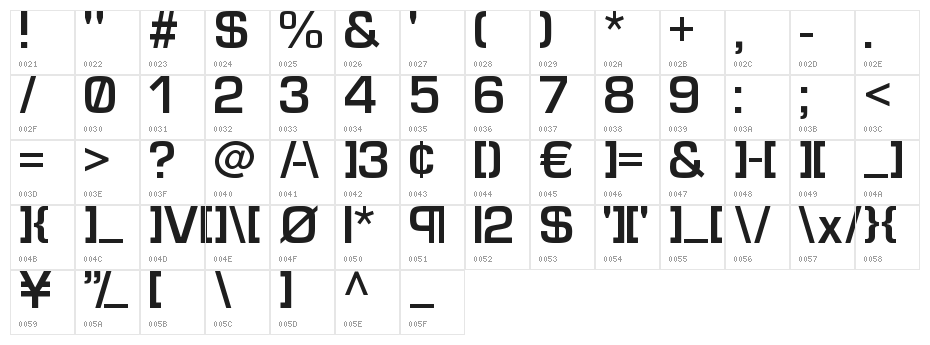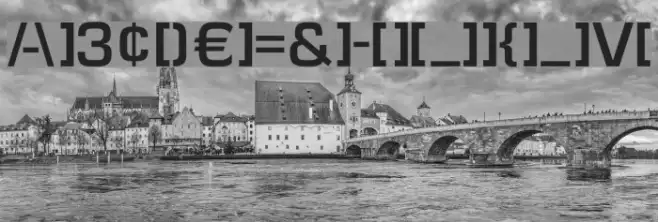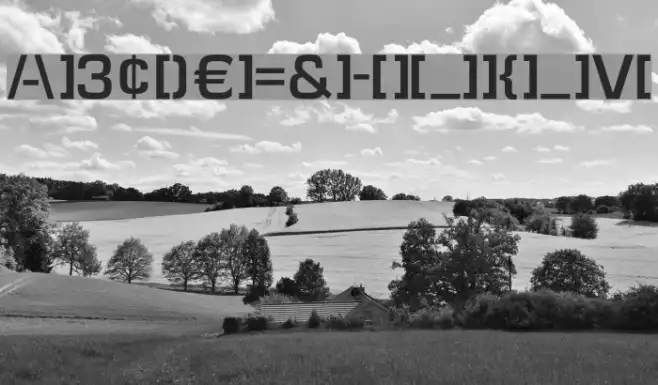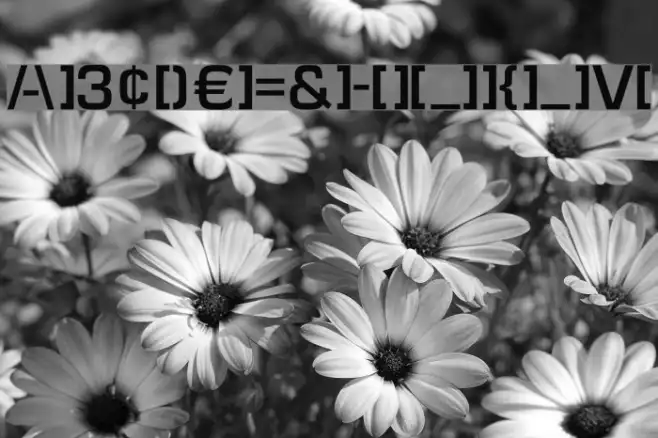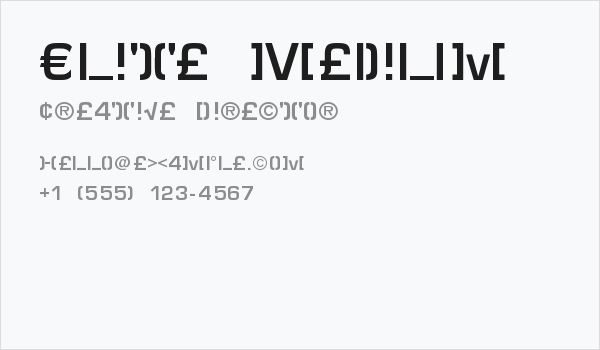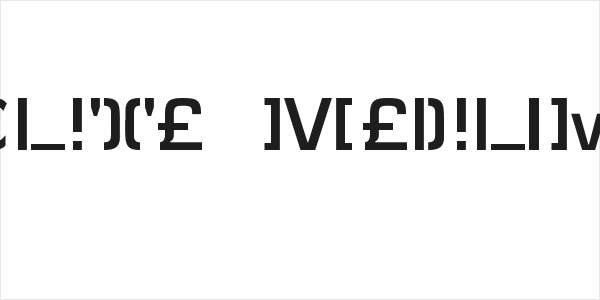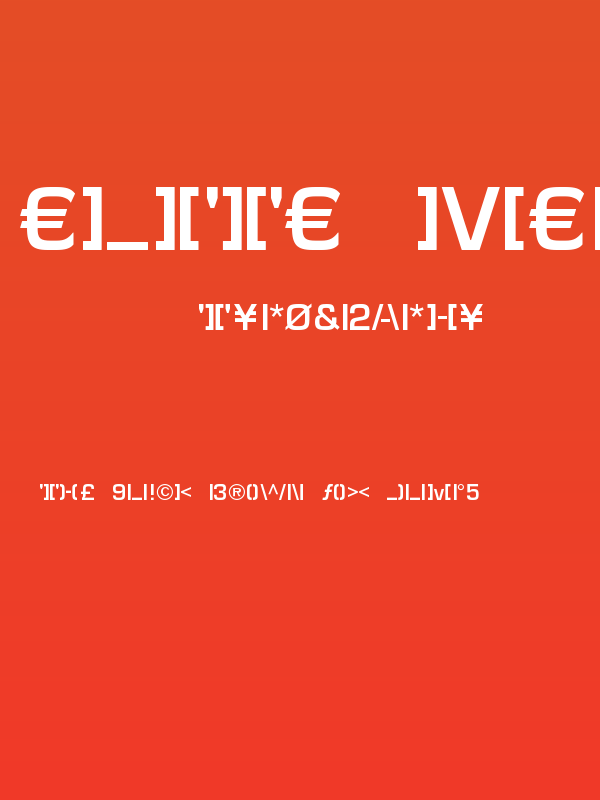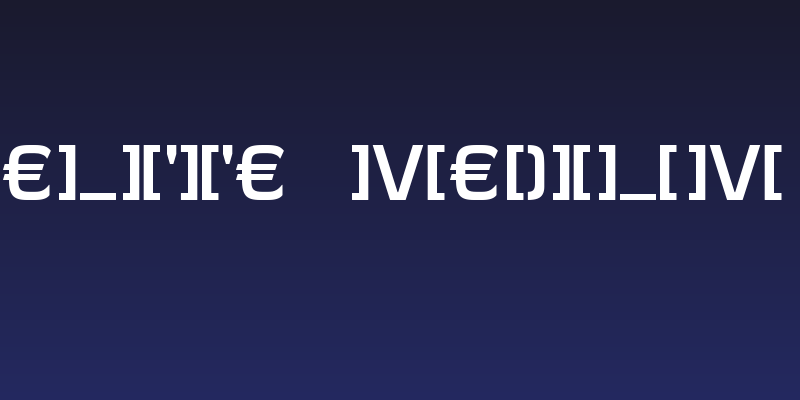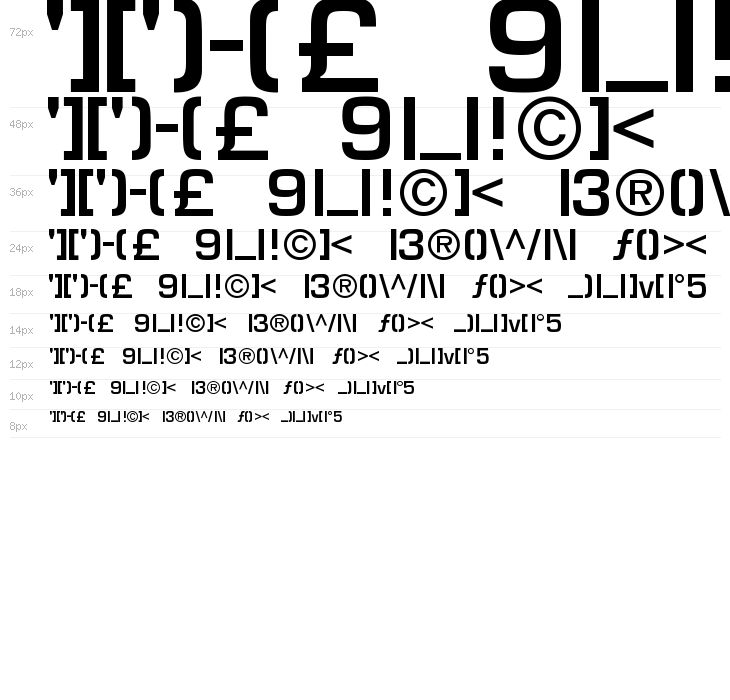
Elite Medium Font
Elite Medium Description
This font exhibits a bold and modern design with a geometric structure. The characters are uniform in width, giving it a monospaced appearance. The strokes are thick and consistent, providing a strong visual impact. The font features sharp angles and clean lines, contributing to its contemporary aesthetic. It includes a full set of uppercase and lowercase letters, numerals, and a variety of special characters. The overall style is sleek and professional, making it suitable for digital and print media where clarity and impact are essential.
| Proposed Projects | Ideal for coding environments, technical documents, digital interfaces, and branding materials that require a modern and professional look. |